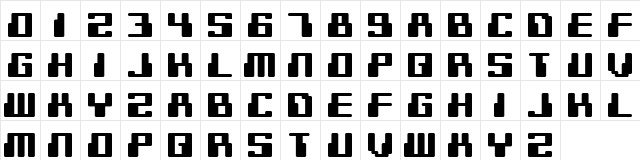
Digitek Regular
Design Context for Digitek Typeface
Digitek channels digital-age aesthetics through its sharp, structured letterforms — ideal for brands that want to signal innovation.
Pro Tip: Use Digitek in combination with a neutral sans for body text. Let it define the brand voice in headlines while keeping reading comfortable elsewhere.